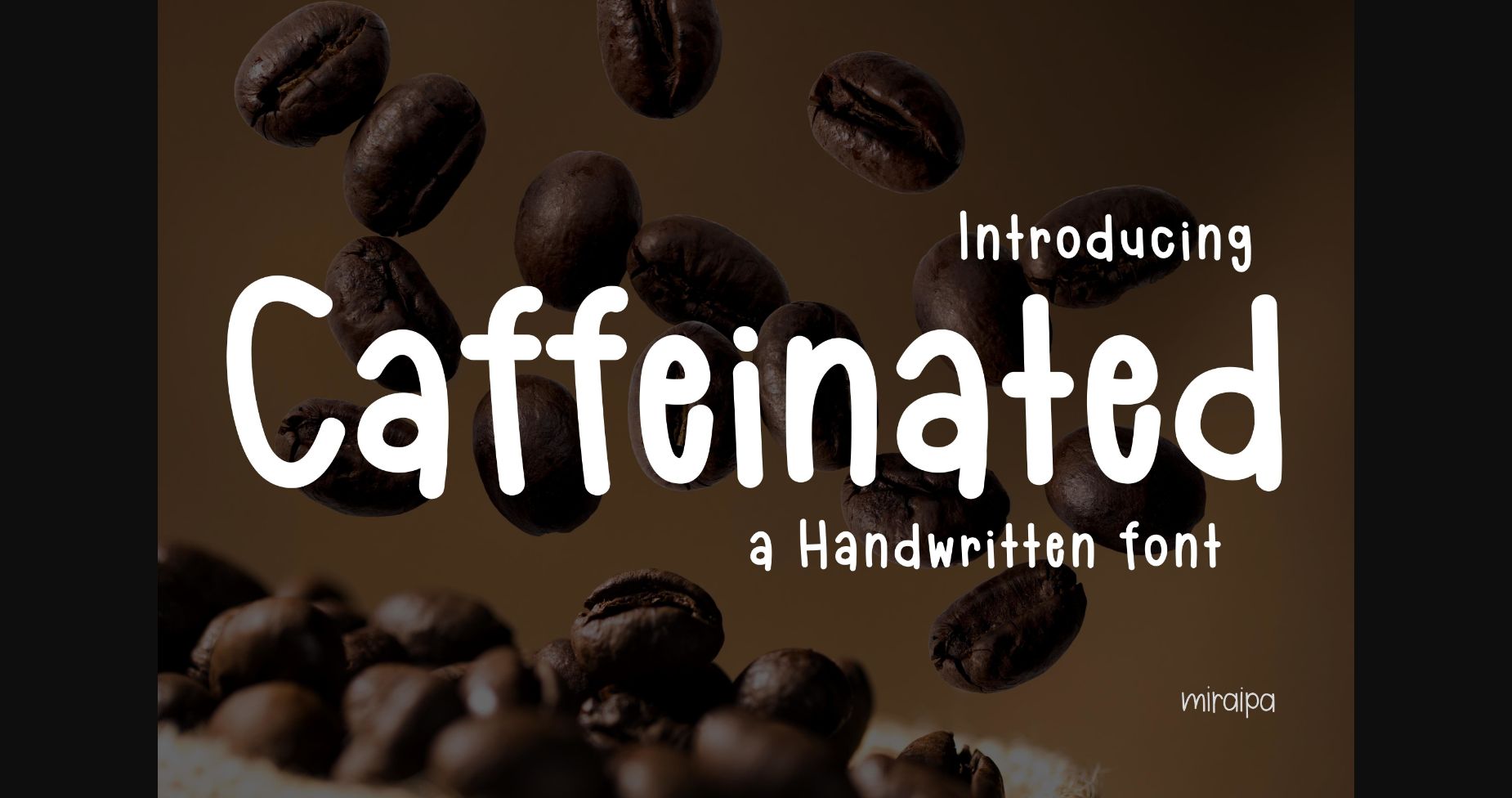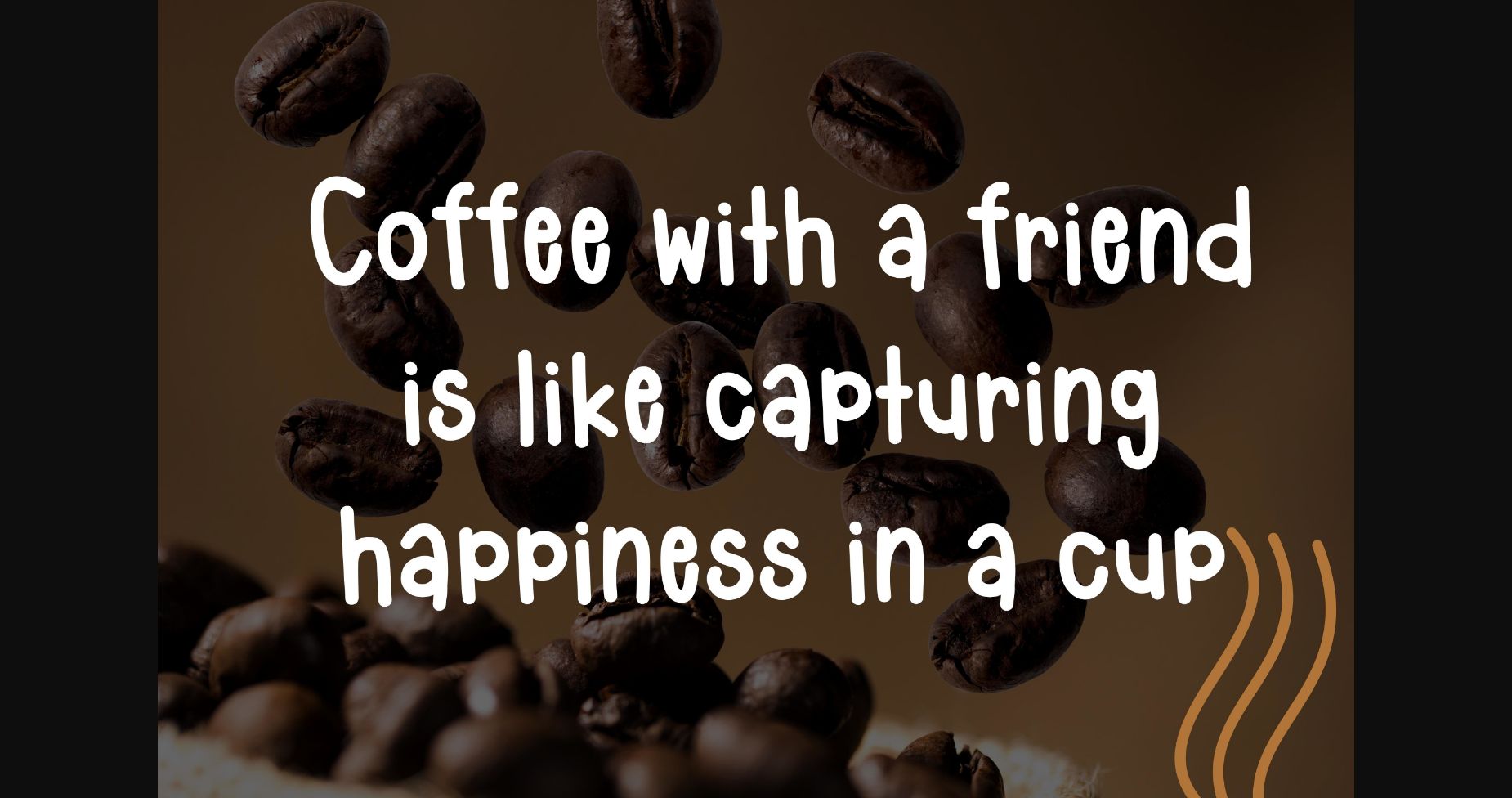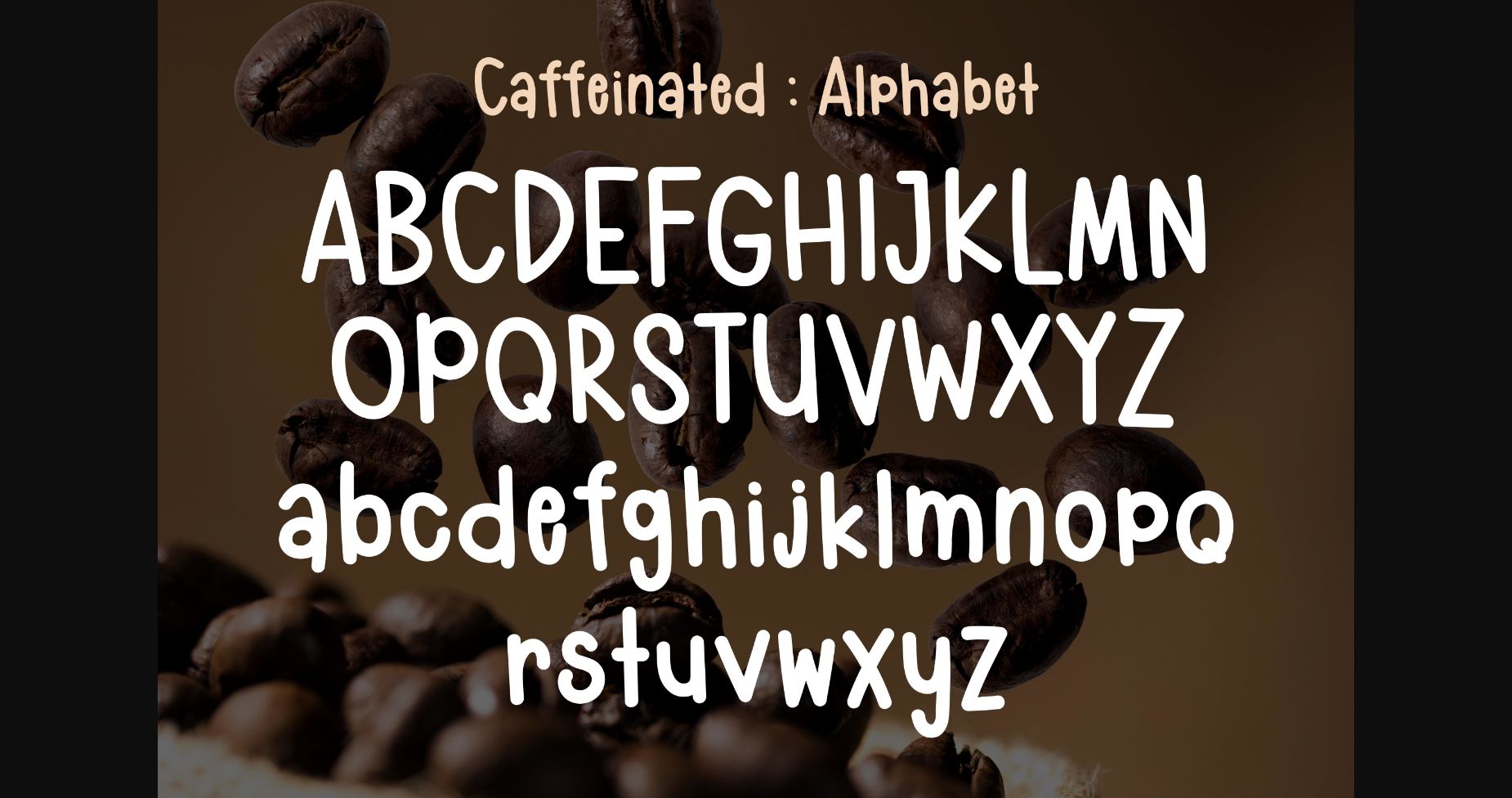
About Caffeinated Font
Caffeinated is designed in a friendly and lovely style. It would be awesome for your diary planner, back-to-school projects, wedding, party decorations, invitations, festivals, posters, blogs, clothing, child-related designs, greeting cards, social media posts, or anything that needs a friendly touch. Add it now to your fonts library, and it will bring any of your DIY projects to life.